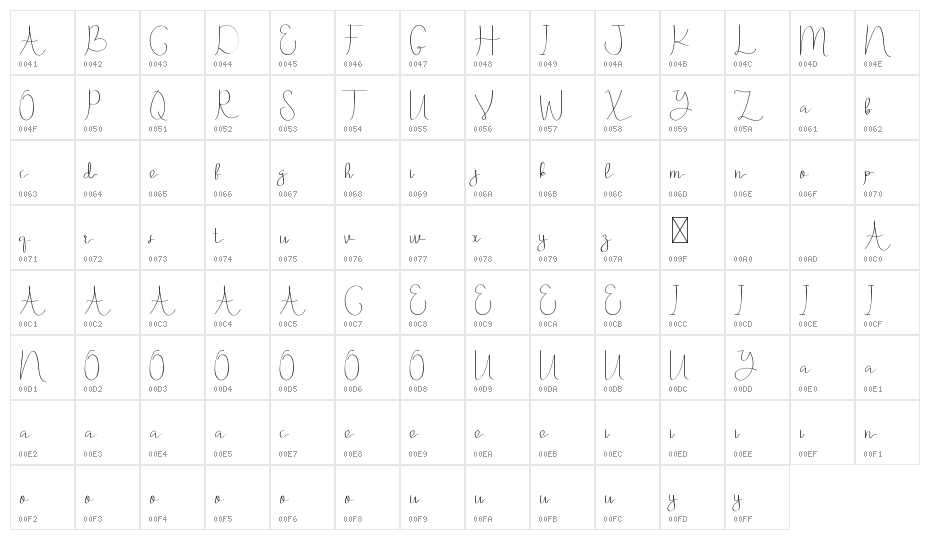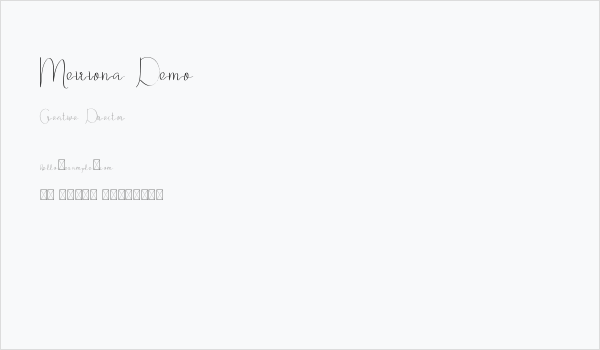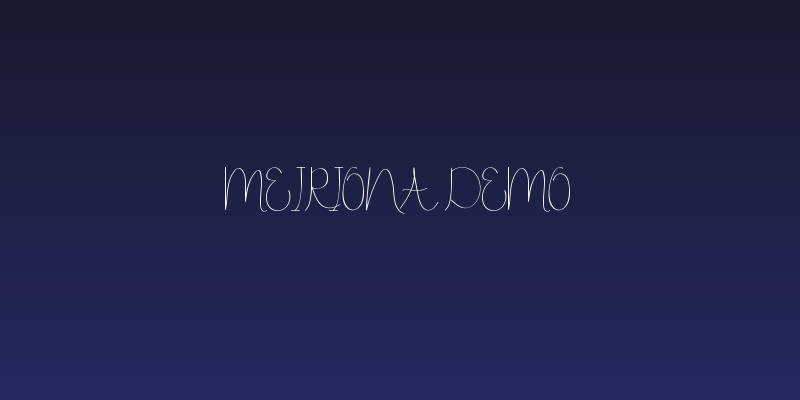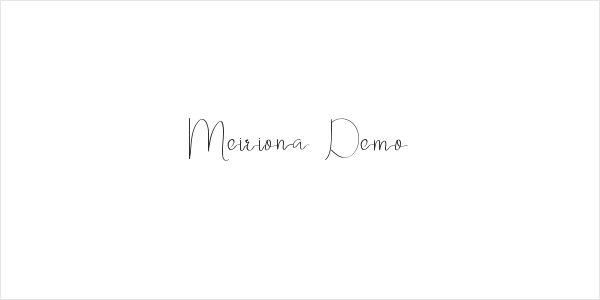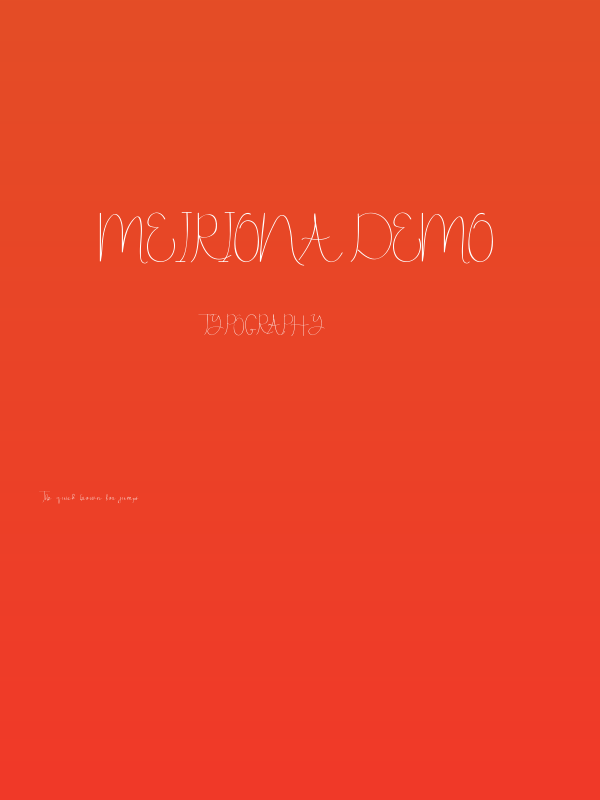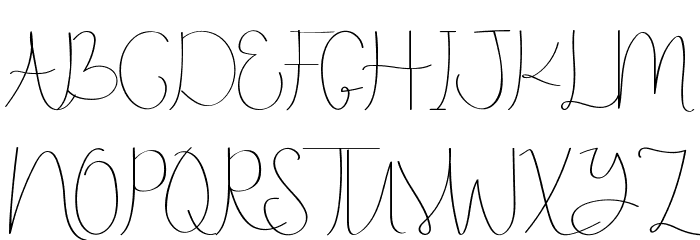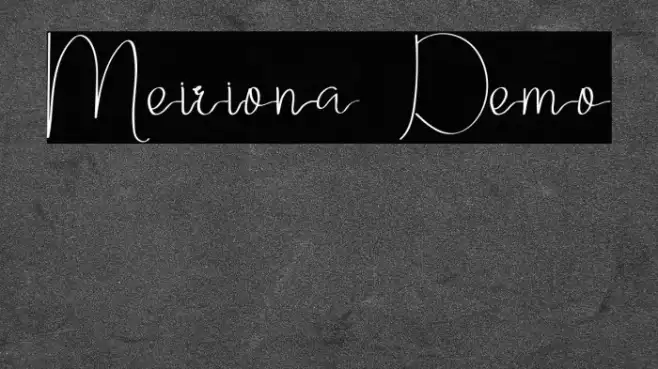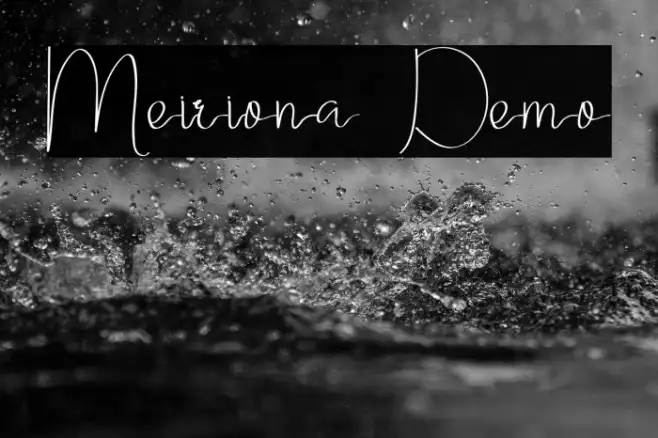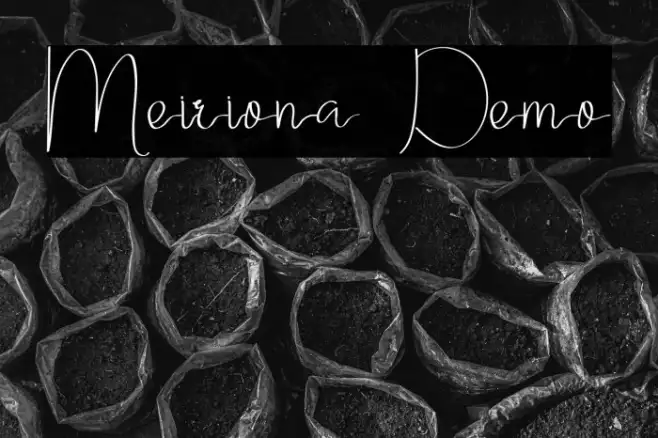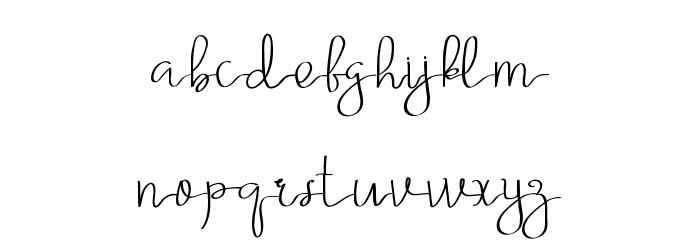
Meiriona Demo Font
Meiriona Demo Description
This font features a delicate and elegant script style, characterized by its flowing, interconnected letterforms. The uppercase letters are tall and slender, with graceful curves and loops that add a sense of movement and fluidity. The lowercase letters maintain a consistent style, with smooth transitions and a slightly more compact form. This font exudes a sense of sophistication and charm, making it ideal for projects that require a touch of elegance. The overall design is balanced and harmonious, with a consistent stroke width that enhances readability while maintaining its decorative appeal.